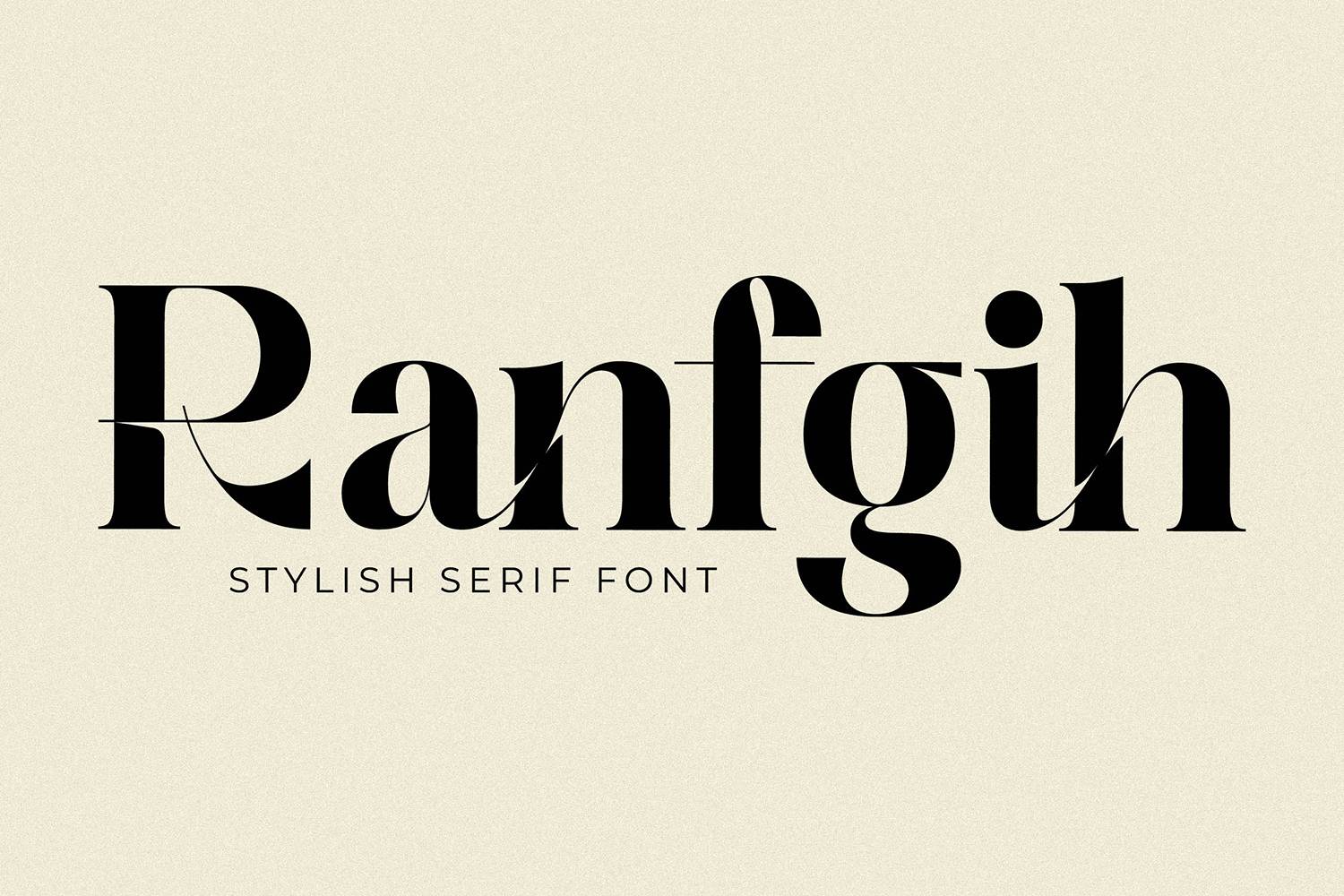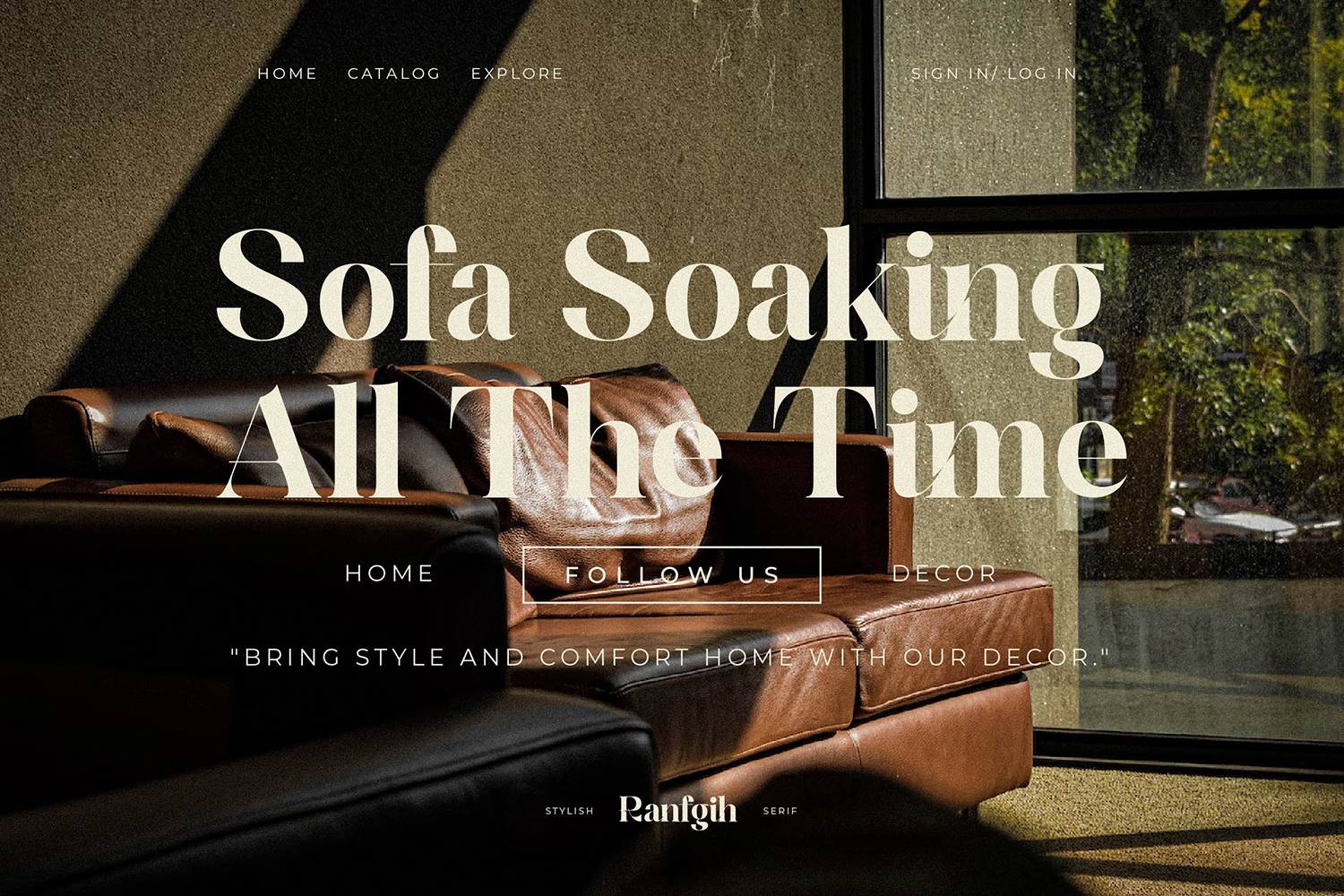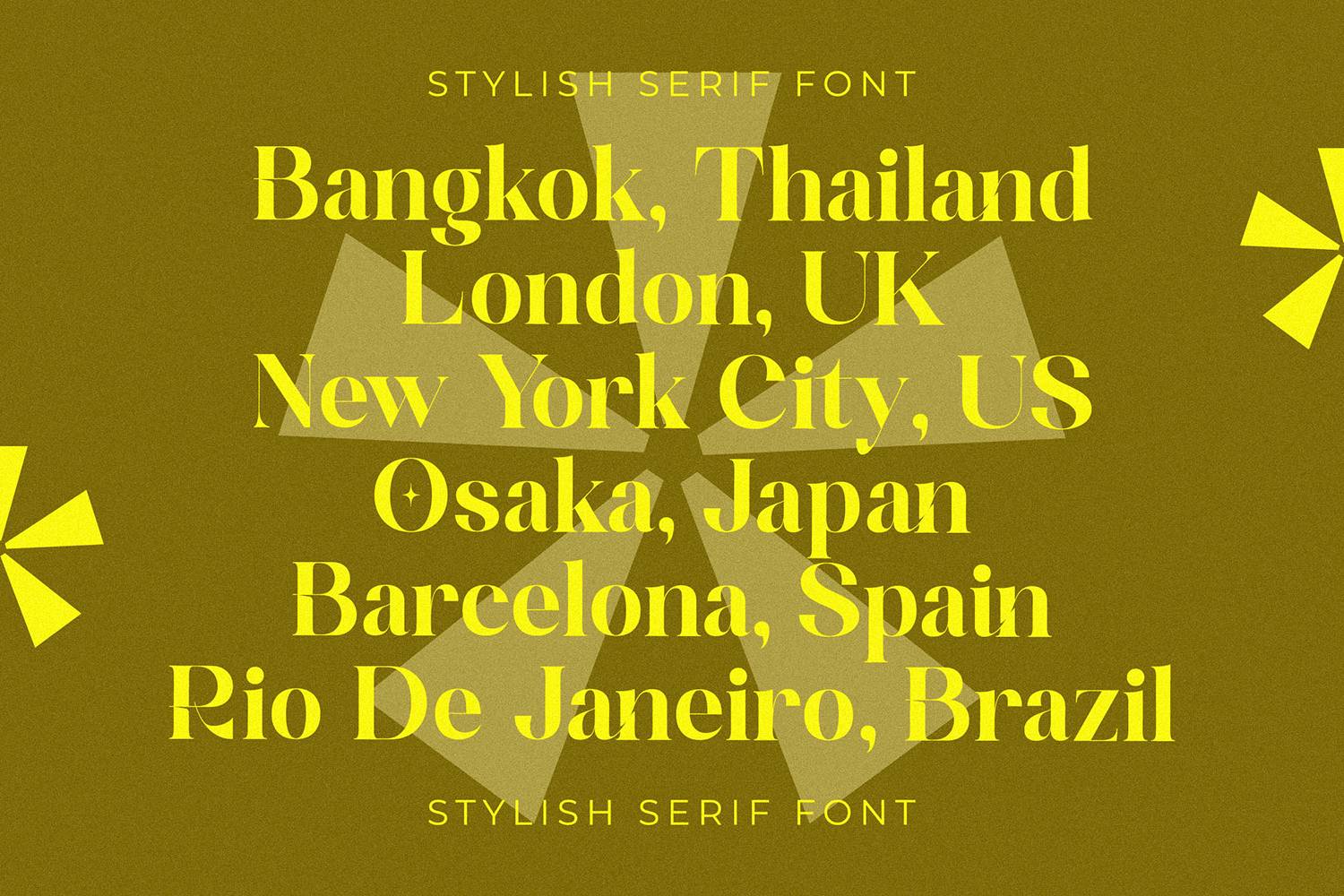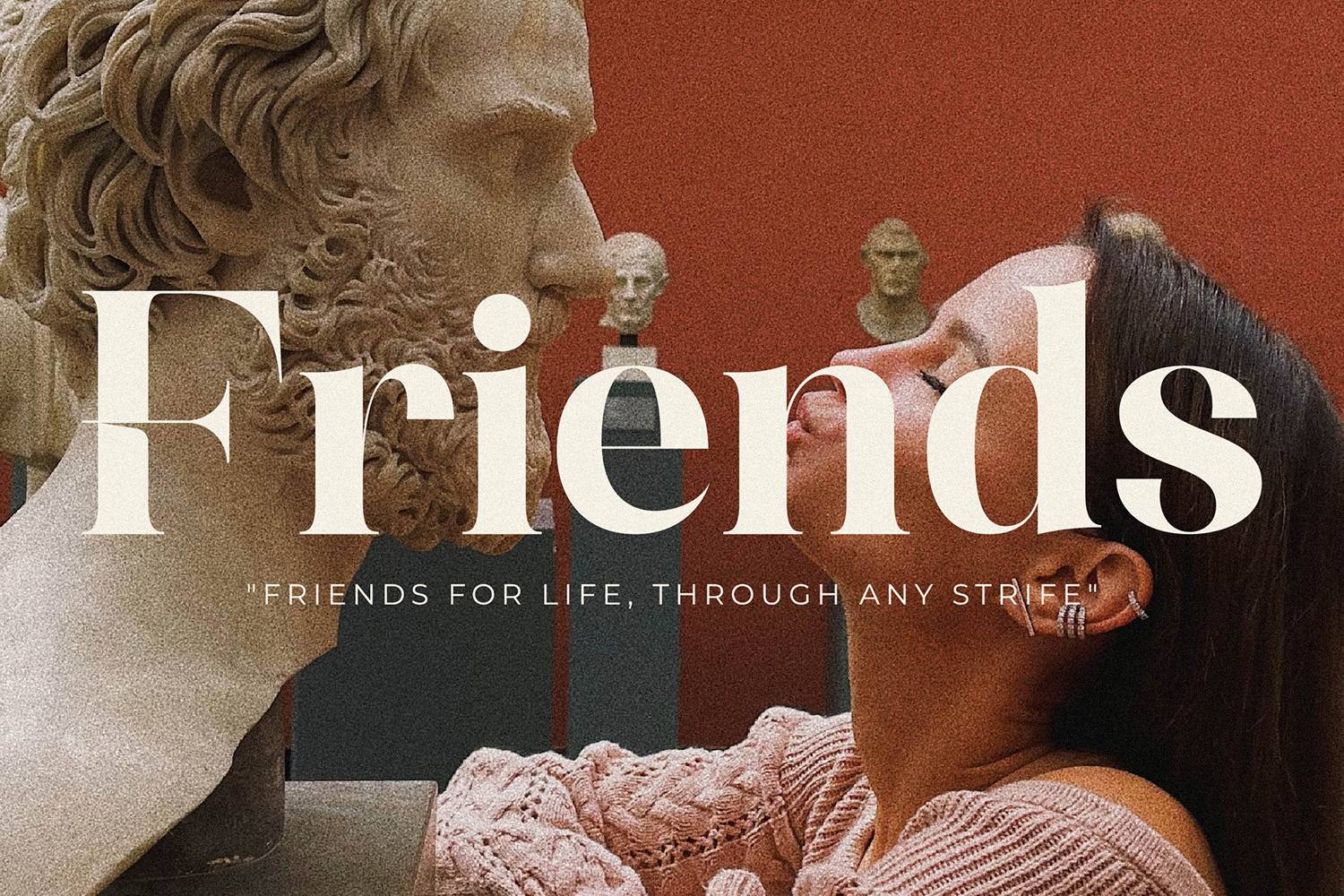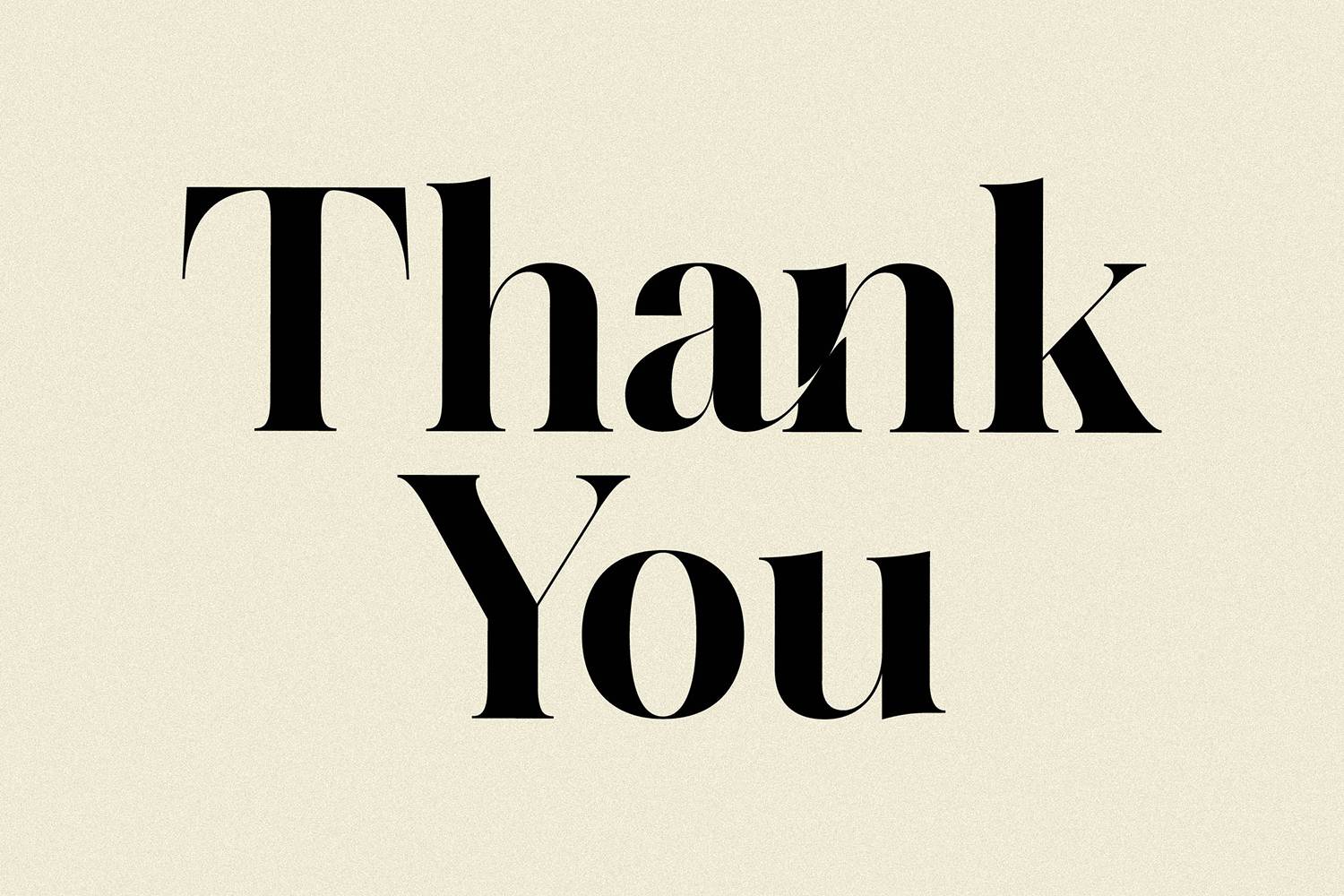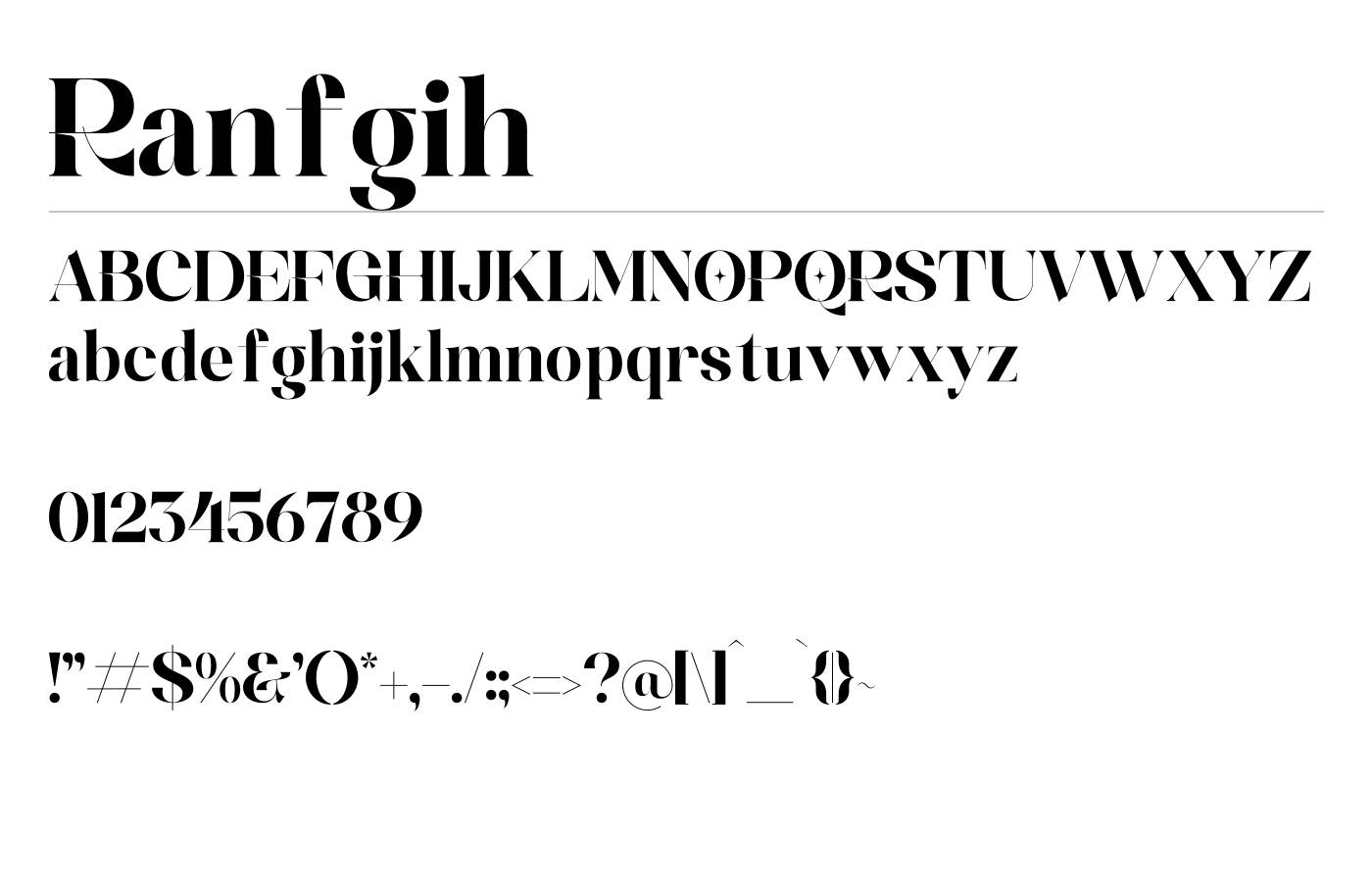
Ranfgih is a striking modern serif font that combines sharp, high-contrast strokes with elegant bracketed serifs, creating a refined yet bold appearance. Its tall x-height and distinctive letterforms give it a luxurious and sophisticated vibe, making it ideal for high-end branding, editorial headlines, and stylish packaging. This font excels where a dramatic and polished look is needed, adding a touch of classic elegance with a contemporary edge.
Ranfgih Font
About Ranfgih Font